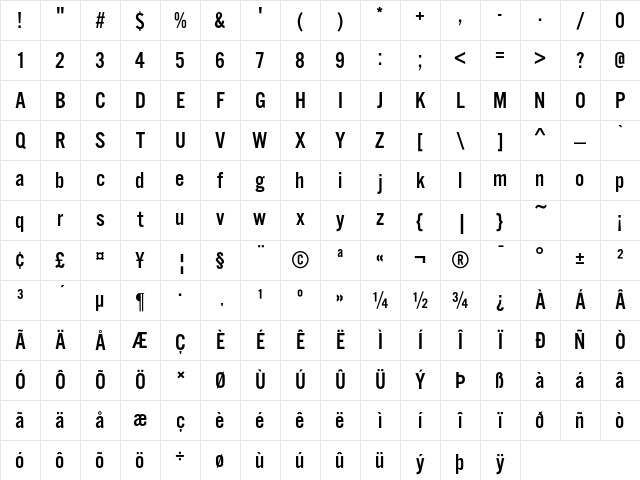
AlternateGothicEF NoThree
Style: NoThree
AlternateGothicEF Family
AlternateGothicEF NoThree
Design Context for AlternateGothicEF
AlternateGothicEF takes a clean, functional approach - its unadorned letterforms prioritise legibility and work reliably across screen and print environments.
Font Pairing: Works well alongside a characterful serif or display font that can carry the expressive load while AlternateGothicEF handles the functional copy.
Pro Tip: Use AlternateGothicEF for UI labels, navigation, and short-form body copy where clean legibility is the priority.